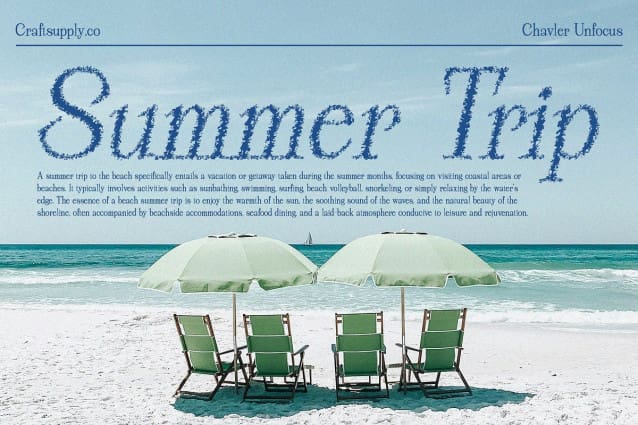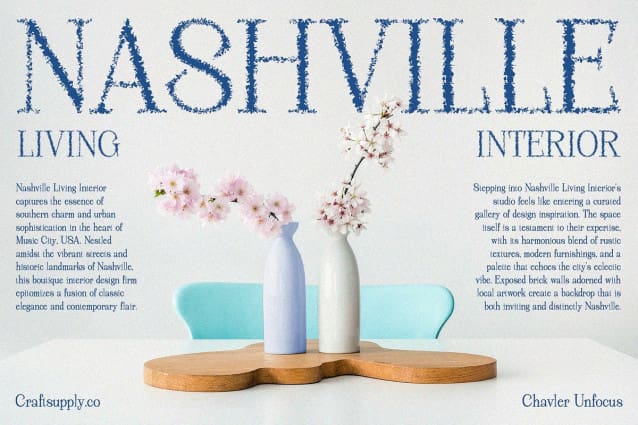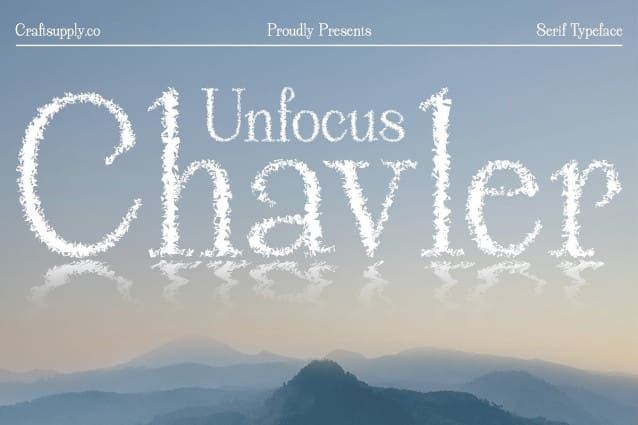
Chavler Unfocus Font
Chavler Unfocus Font is a modern serif font characterized by its slim, elegant lines and a subtle unfocused effect. This combination creates a sophisticated and slightly ethereal look that adds a touch of artistry to your designs.
Perfect for High-End Branding and Editorial Designs Ideal for high-end branding, editorial designs, and luxury invitations, Chavler Unfocus brings a refined and graceful aesthetic to your projects. Its sleek and polished appearance ensures your designs exude elegance and sophistication.
Sophisticated and Ethereal Appeal This font’s delicate serifs and unique unfocused effect offer a sophisticated and ethereal appeal, making it perfect for projects that require a touch of luxury and finesse. Chavler Unfocus seamlessly blends modernity with a soft, dreamy quality.
Elevate Your Design Projects Choose Chavler Unfocus to elevate your design projects with its chic and elegant style. Whether you’re creating branding materials, editorial layouts, or exclusive invitations, this font adds a distinctive and captivating charm, ensuring your work stands out with grace and refinement.